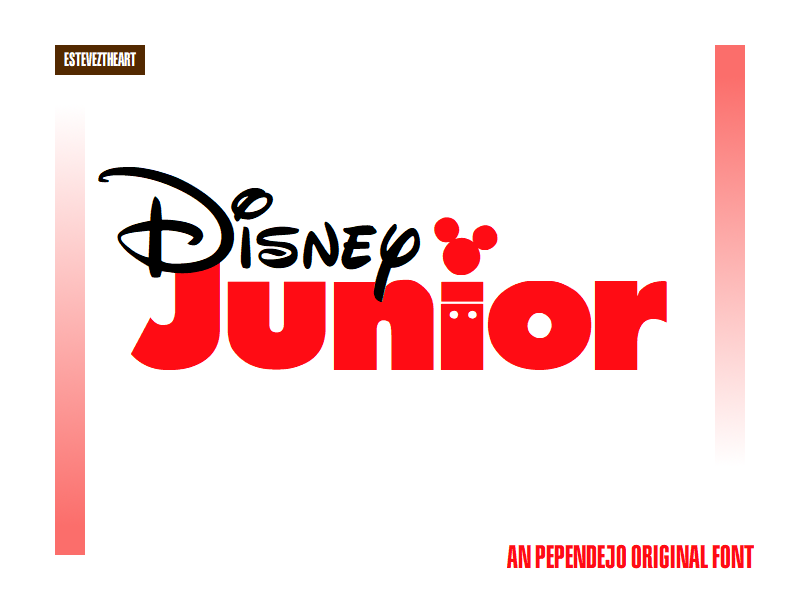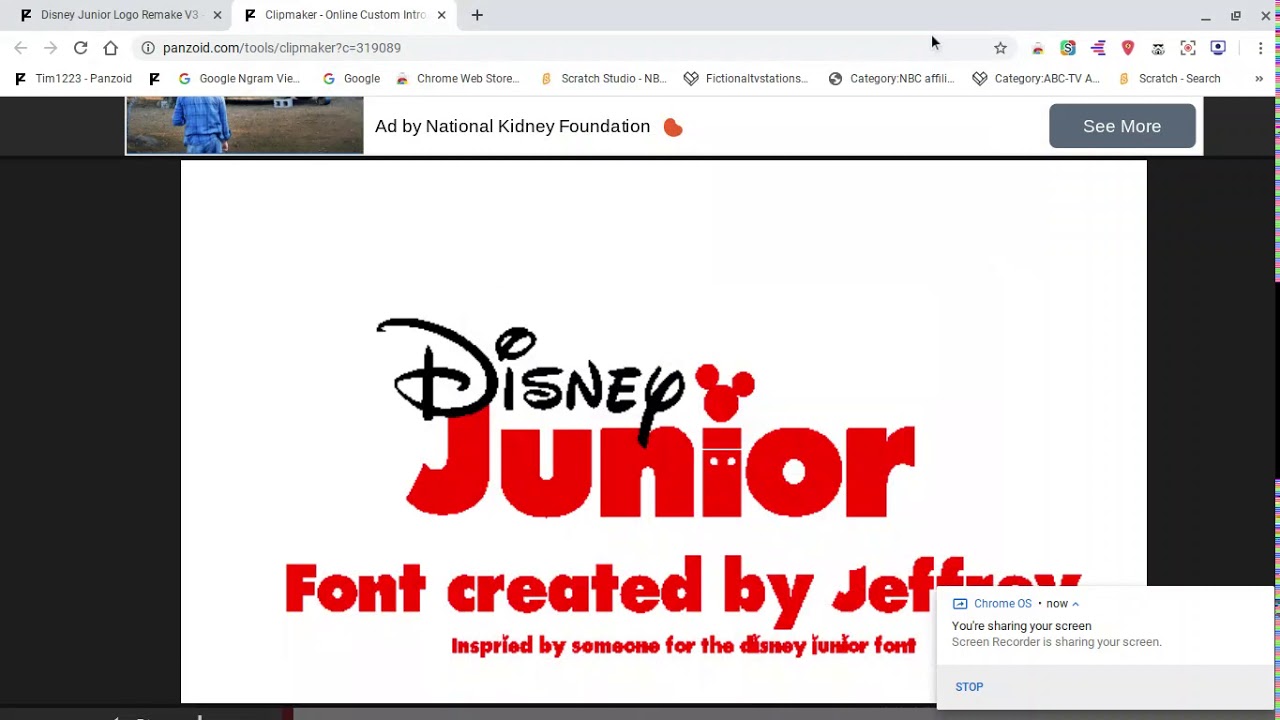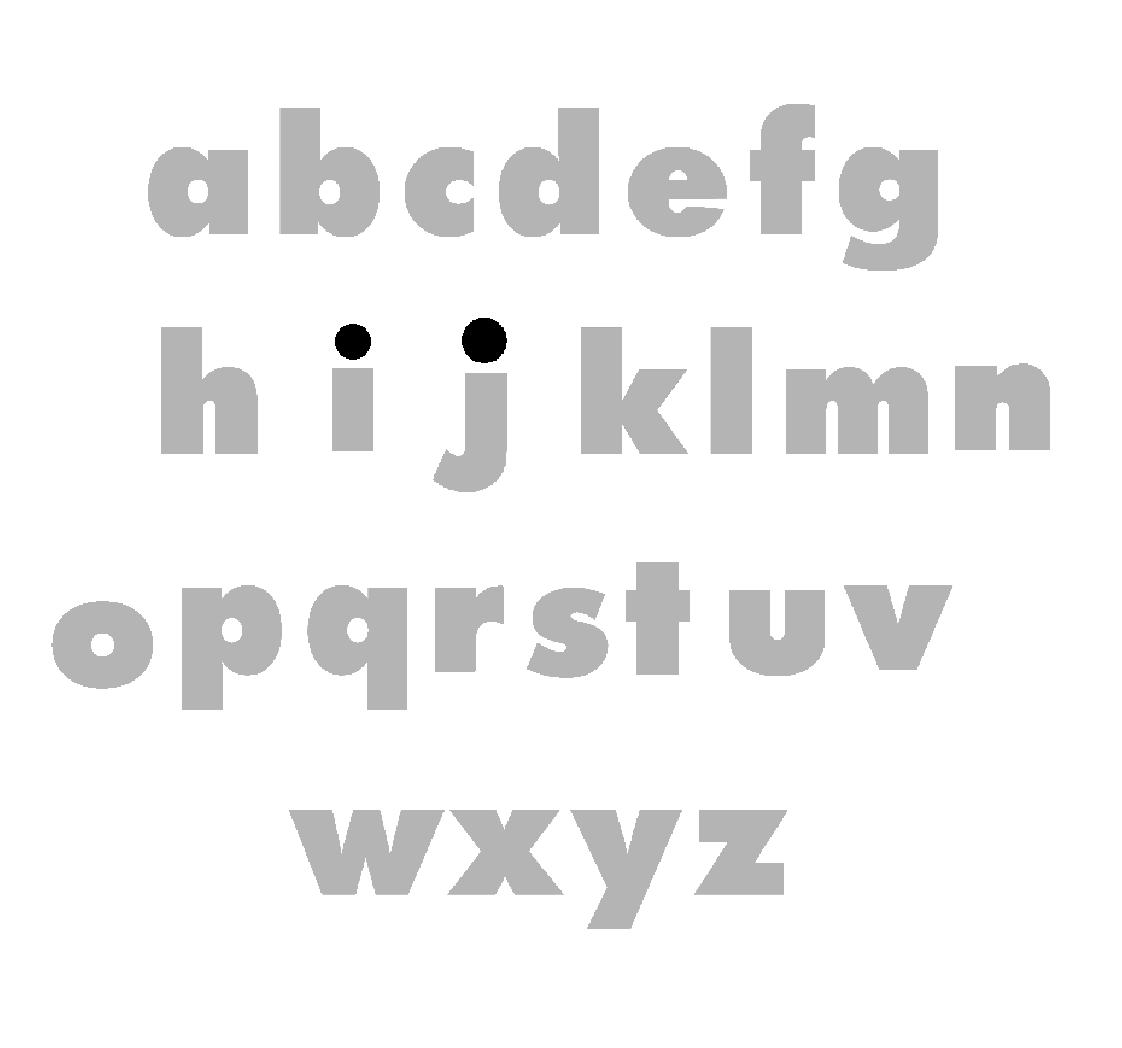
Disney Junior Font
Disney Junior Font - Web junior, the i has been photoshopped to look like mickey's overalls. Web disney junior font generator & download is available free at fontbolt. Also the font has had a 3d effect applied, and the character spacing has been. Moreover, you can embed it to your. Try our text generator and create cool graphics for disney junior font, then you can save the font. The disney junior logo consists of the classic disney. Web most shows that air on disney junior have their own variation of the logo, with the standard disney written in walt disney's famous handwriting and a large chunky. Web programs broadcast from disney junior include jake and the never land pirates, doc mcstuffins, sofia the first etc.
Web disney junior font generator & download is available free at fontbolt. Try our text generator and create cool graphics for disney junior font, then you can save the font. Moreover, you can embed it to your. The disney junior logo consists of the classic disney. Also the font has had a 3d effect applied, and the character spacing has been. Web programs broadcast from disney junior include jake and the never land pirates, doc mcstuffins, sofia the first etc. Web most shows that air on disney junior have their own variation of the logo, with the standard disney written in walt disney's famous handwriting and a large chunky. Web junior, the i has been photoshopped to look like mickey's overalls.
Web disney junior font generator & download is available free at fontbolt. Web junior, the i has been photoshopped to look like mickey's overalls. The disney junior logo consists of the classic disney. Moreover, you can embed it to your. Try our text generator and create cool graphics for disney junior font, then you can save the font. Web most shows that air on disney junior have their own variation of the logo, with the standard disney written in walt disney's famous handwriting and a large chunky. Web programs broadcast from disney junior include jake and the never land pirates, doc mcstuffins, sofia the first etc. Also the font has had a 3d effect applied, and the character spacing has been.
Moreover, you can embed it to your. Try our text generator and create cool graphics for disney junior font, then you can save the font. Web most shows that air on disney junior have their own variation of the logo, with the standard disney written in walt disney's famous handwriting and a large chunky. Web disney junior font generator &.
Web most shows that air on disney junior have their own variation of the logo, with the standard disney written in walt disney's famous handwriting and a large chunky. Web disney junior font generator & download is available free at fontbolt. Moreover, you can embed it to your. Web programs broadcast from disney junior include jake and the never land.
Web most shows that air on disney junior have their own variation of the logo, with the standard disney written in walt disney's famous handwriting and a large chunky. Web programs broadcast from disney junior include jake and the never land pirates, doc mcstuffins, sofia the first etc. Moreover, you can embed it to your. Web junior, the i has.
The disney junior logo consists of the classic disney. Web disney junior font generator & download is available free at fontbolt. Web junior, the i has been photoshopped to look like mickey's overalls. Try our text generator and create cool graphics for disney junior font, then you can save the font. Moreover, you can embed it to your.
Web most shows that air on disney junior have their own variation of the logo, with the standard disney written in walt disney's famous handwriting and a large chunky. Web junior, the i has been photoshopped to look like mickey's overalls. Moreover, you can embed it to your. Try our text generator and create cool graphics for disney junior font,.
Moreover, you can embed it to your. Web disney junior font generator & download is available free at fontbolt. Also the font has had a 3d effect applied, and the character spacing has been. Web junior, the i has been photoshopped to look like mickey's overalls. Web programs broadcast from disney junior include jake and the never land pirates, doc.
Web most shows that air on disney junior have their own variation of the logo, with the standard disney written in walt disney's famous handwriting and a large chunky. Also the font has had a 3d effect applied, and the character spacing has been. Try our text generator and create cool graphics for disney junior font, then you can save.
Web junior, the i has been photoshopped to look like mickey's overalls. Web disney junior font generator & download is available free at fontbolt. Also the font has had a 3d effect applied, and the character spacing has been. The disney junior logo consists of the classic disney. Web programs broadcast from disney junior include jake and the never land.
Web programs broadcast from disney junior include jake and the never land pirates, doc mcstuffins, sofia the first etc. Moreover, you can embed it to your. Web junior, the i has been photoshopped to look like mickey's overalls. The disney junior logo consists of the classic disney. Web disney junior font generator & download is available free at fontbolt.
Web programs broadcast from disney junior include jake and the never land pirates, doc mcstuffins, sofia the first etc. Web disney junior font generator & download is available free at fontbolt. Moreover, you can embed it to your. Web junior, the i has been photoshopped to look like mickey's overalls.
The disney junior logo consists of the classic disney. Also the font has had a 3d effect applied, and the character spacing has been.